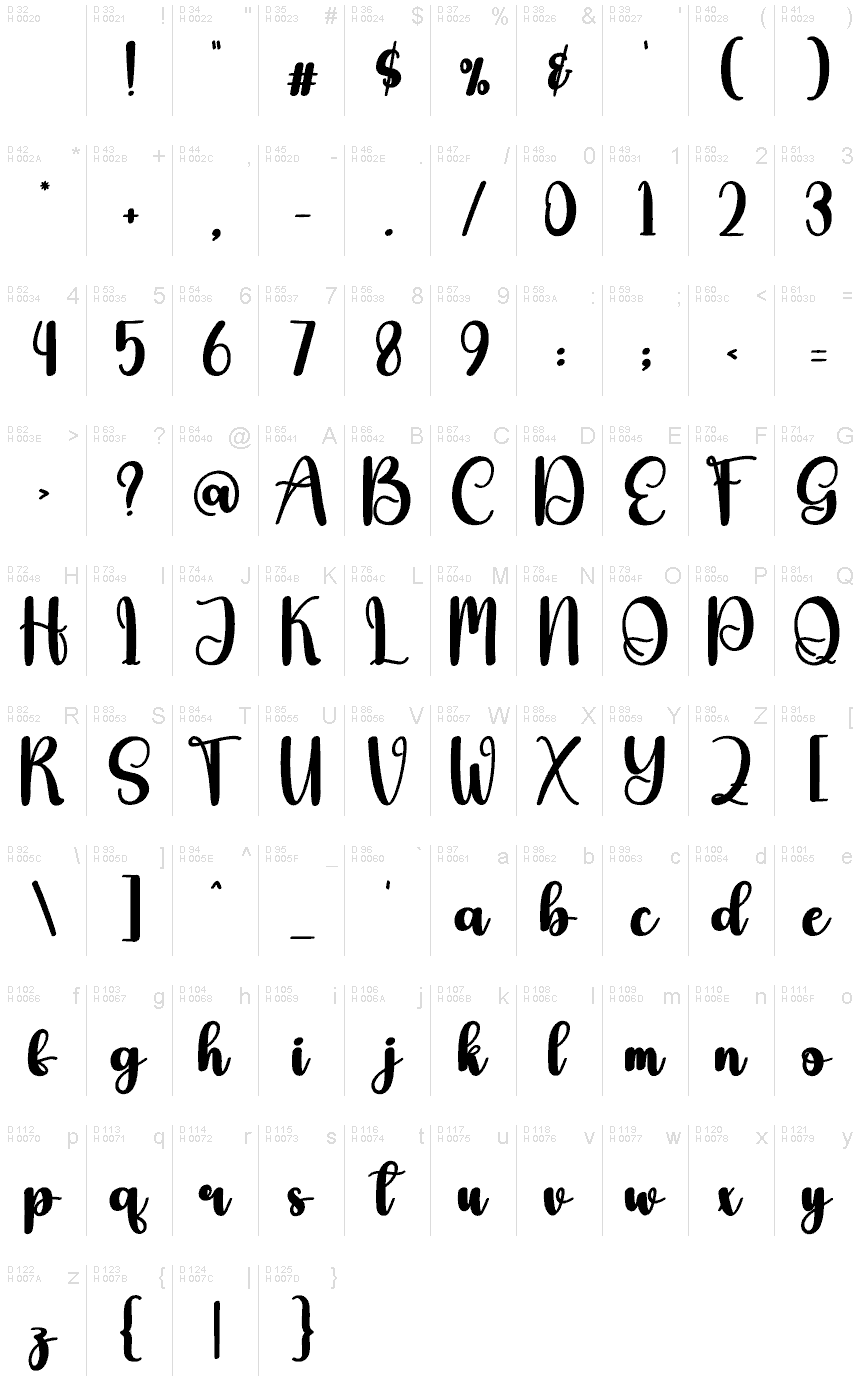
Roading
Roading font features a friendly and casual handwritten style that adds an artistic flair to any design. The brush strokes are flowing, giving it a natural and human touch. This free brush font offers a modern and contemporary feel, making it ideal for engaging your audience.